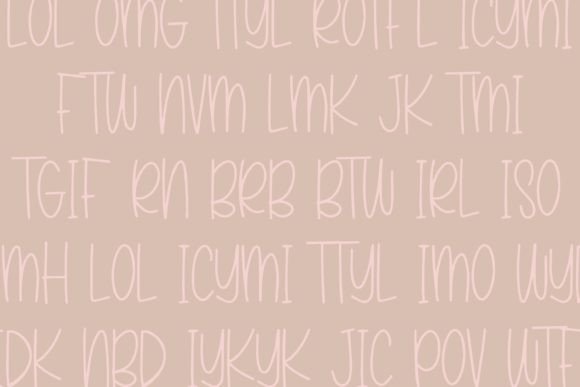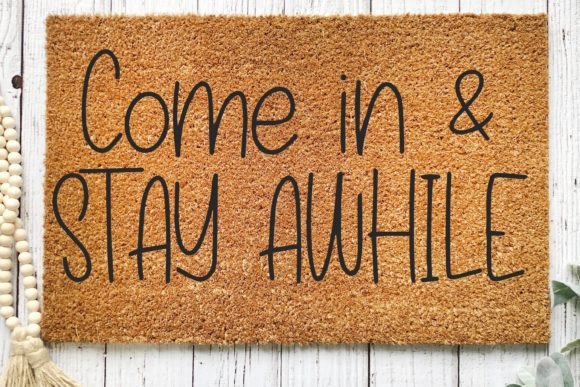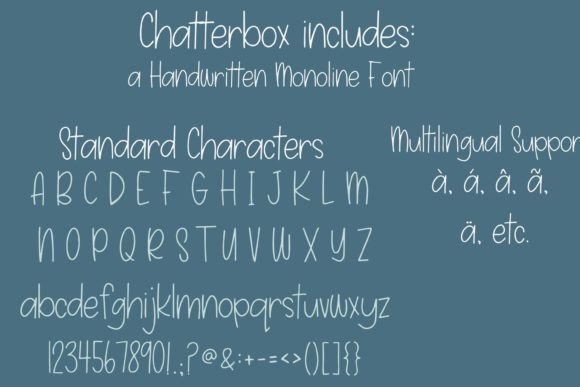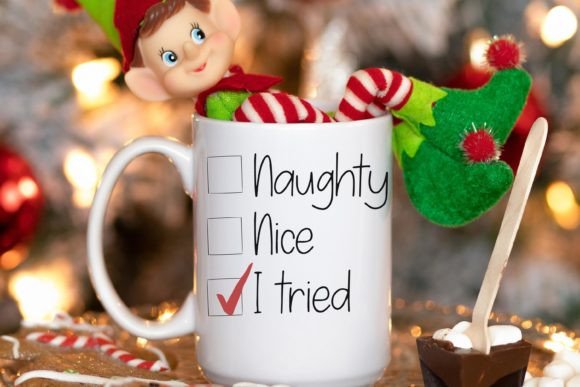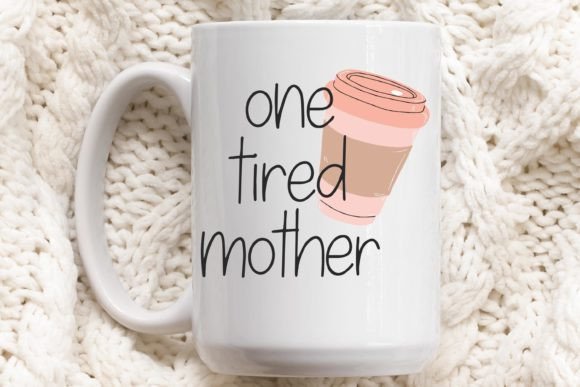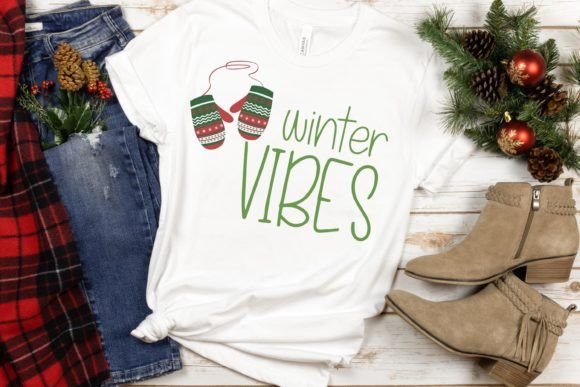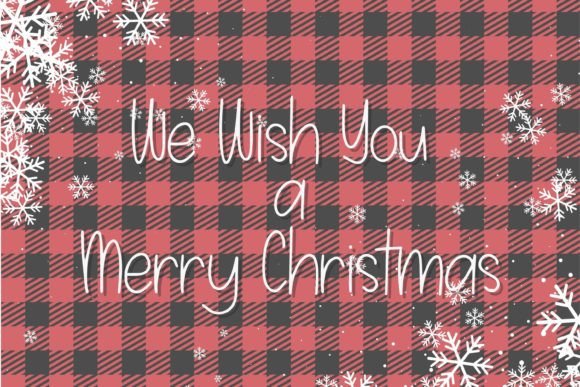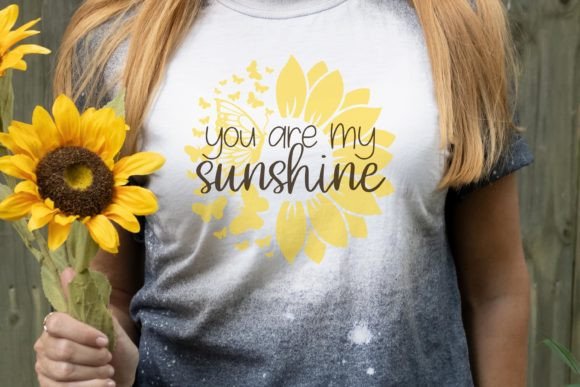
Chatterbox Font
About Chatterbox Font
Chatterbox is a cute, handwritten monoline font. Perfect for fun logos, greeting cards, t-shirt designs, stickers, social media, and any craft or project.